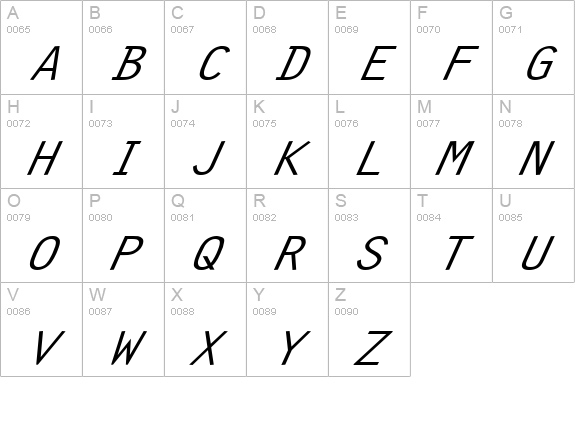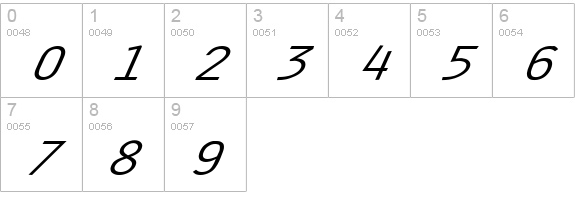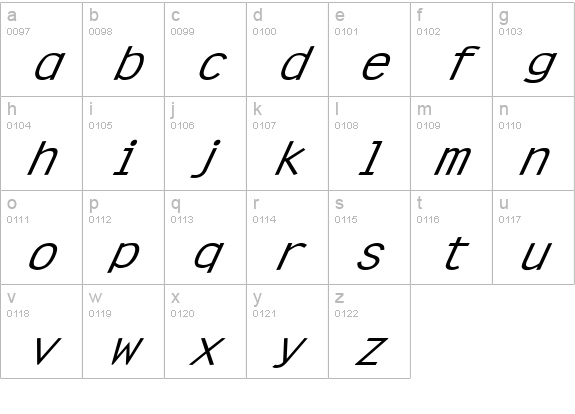
Clean Wide Italic Font Details
Clean Wide Italic is a distinctive, extended-width, italic variant in the Clean typeface family \xE2\x80\x94 well suited to design and typography projects.
Introducing Clean Wide Italic font - a sleek and modern typeface that exudes sophistication and elegance. With its clean lines and wide stance, this font is perfect for adding a touch of style to any project. The italicized design adds a touch of flair, making it ideal for creating eye-catching headlines or elegant invitations. The best part? Clean Wide Italic font is completely free to download at FontsMarket.com. Whether you're working on a professional presentation, a creative design project, or simply want to elevate your personal projects, this font is a must-have in your collection. Don't miss out on the opportunity to enhance your typography with this stunning typeface - download Clean Wide Italic font today and unleash your creativity!